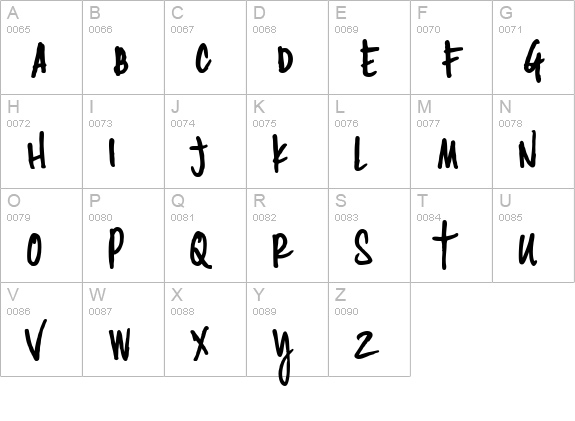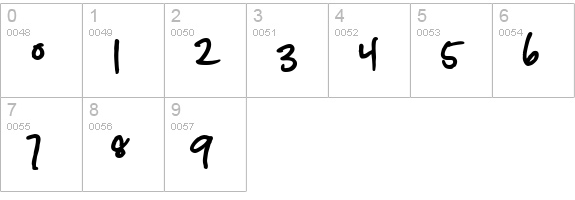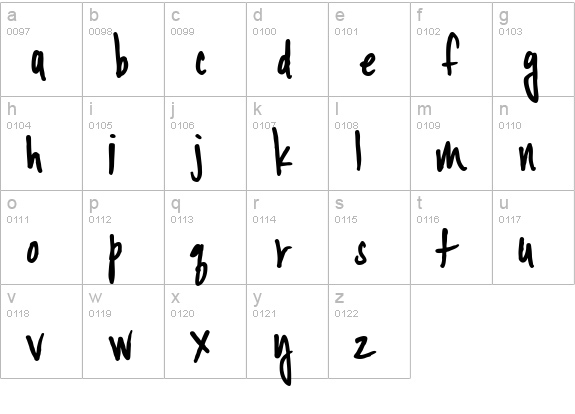
Cinahand Font Details
Cinahand font is a whimsical and charming typeface that brings a touch of playfulness to any design project. With its elegant yet casual handwritten style, Cinahand is perfect for adding a unique and personal flair to your work. This versatile font is ideal for a wide range of applications, from invitations and greeting cards to logos and branding. What makes Cinahand font even more appealing is that it is available for free download at FontsMarket.com. This means you can easily access this delightful font and start using it in your projects without any cost. Whether you're a designer looking for a fun and creative font or someone who simply appreciates a touch of whimsy in their text, Cinahand font is sure to delight and inspire. Download it now and let your creativity shine with this beautiful and free typeface.